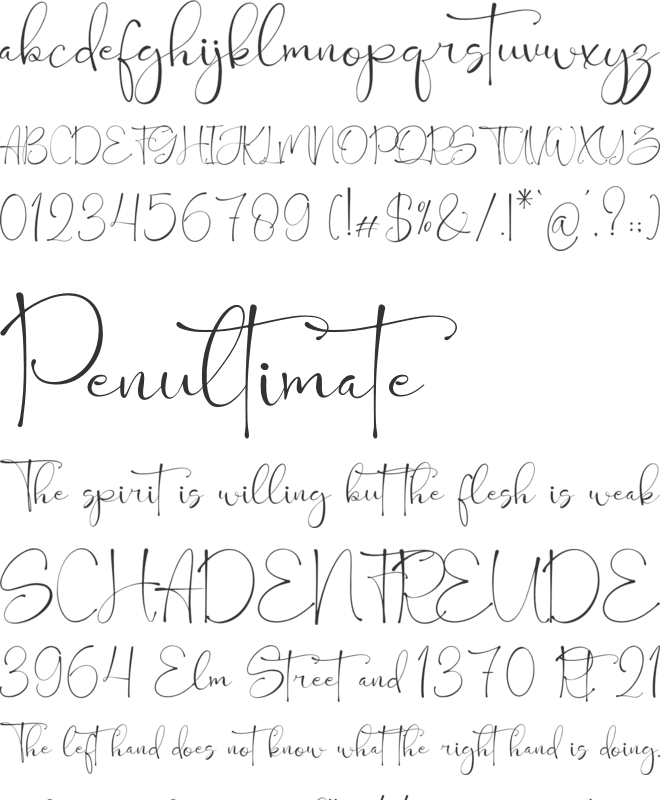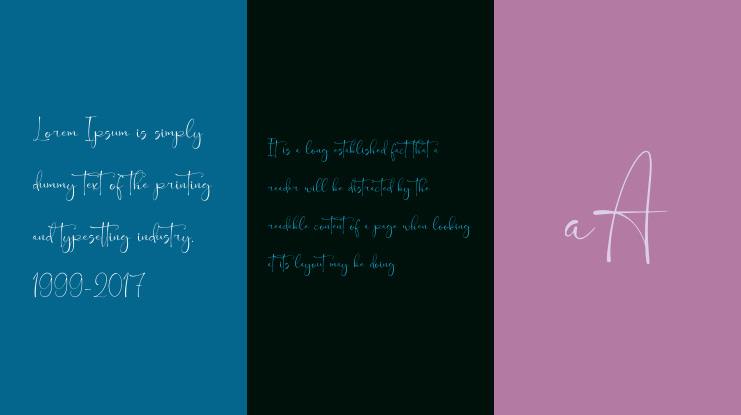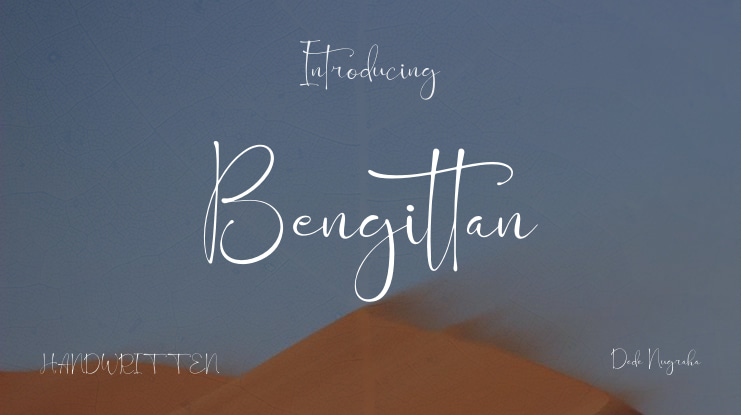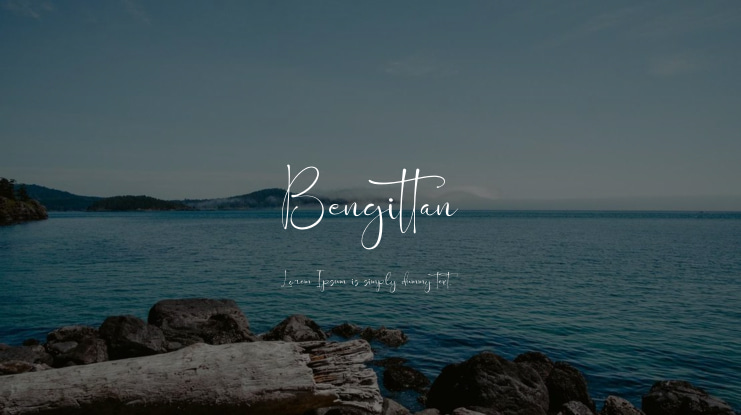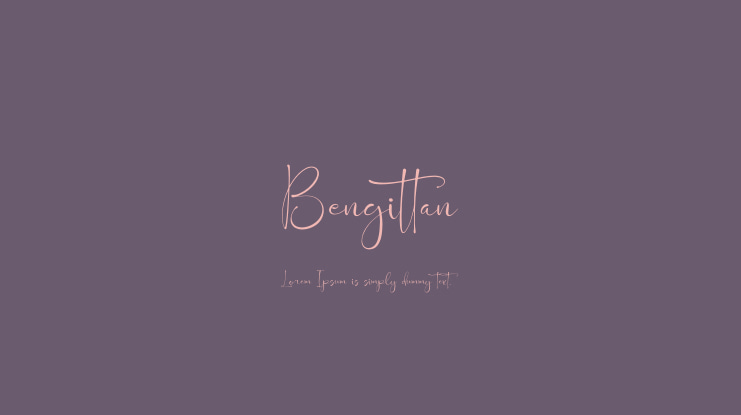
Bengittan Font
Bengittan Handwritten Script Font is a versatile font suitable for various projects such as logos, branding, homeware designs, product packaging, quotes, posters, apparel, and more. By using this font, you agree to the Product Usage Agreement which includes the following terms: